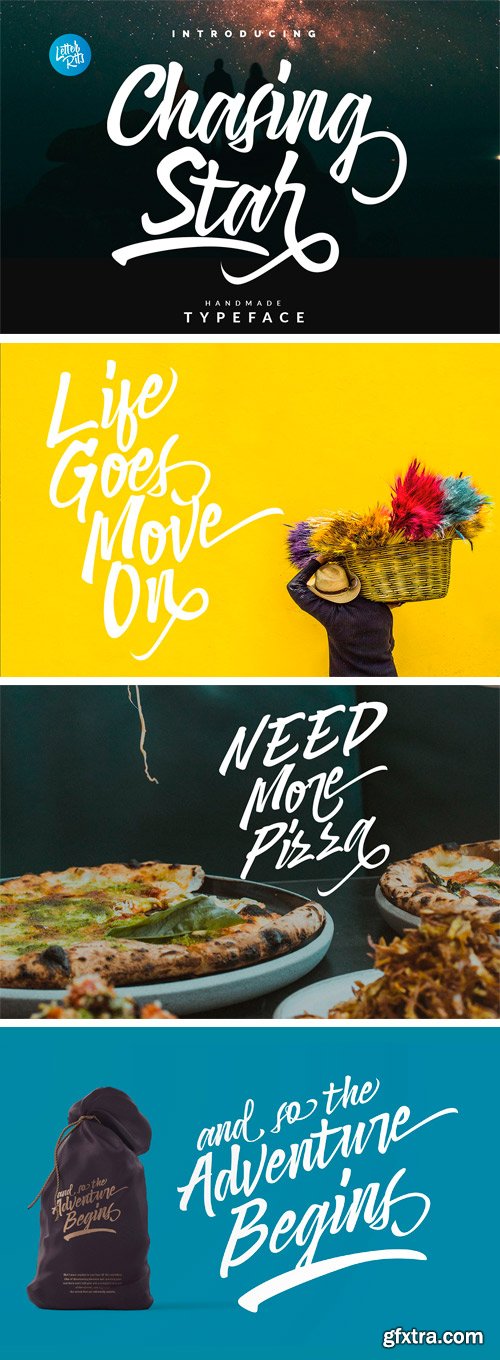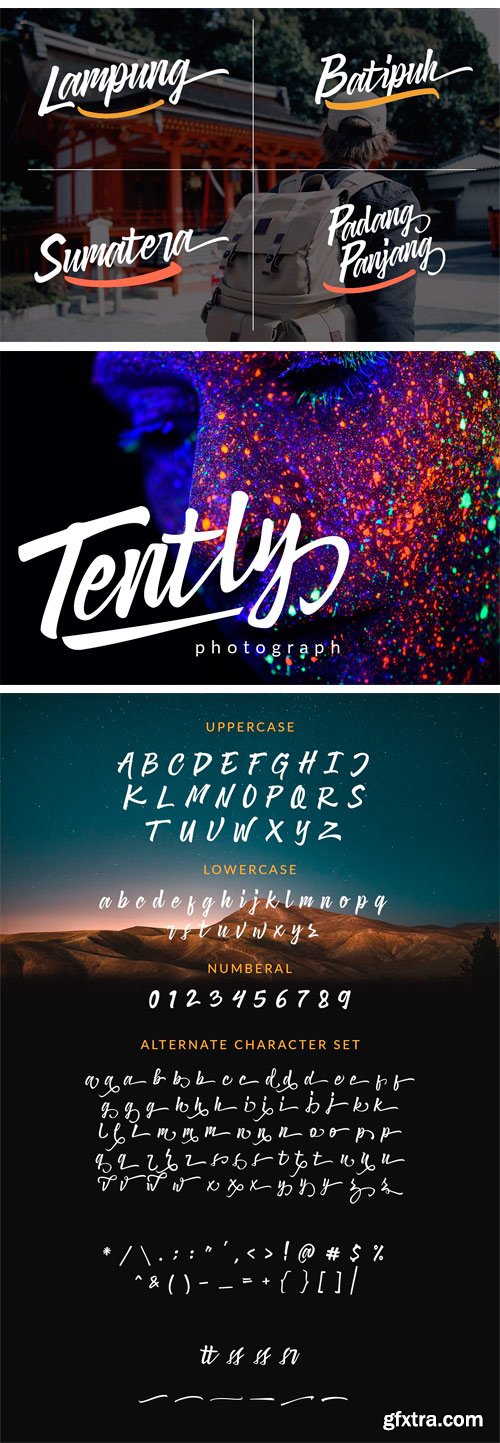
CM - Chasing Start Font 2182641
Introducing Purnama, my 2nd project hand-lettering font created from crayola and paper to digital vector. This typeface includes all uppercase and lowercase letters, numerals, punctuation, symbols and multilingual characters. Chasing Star Font is perfect for branding projects, homeware designs, product packaging - or simply as a stylish text overlay to any background image.